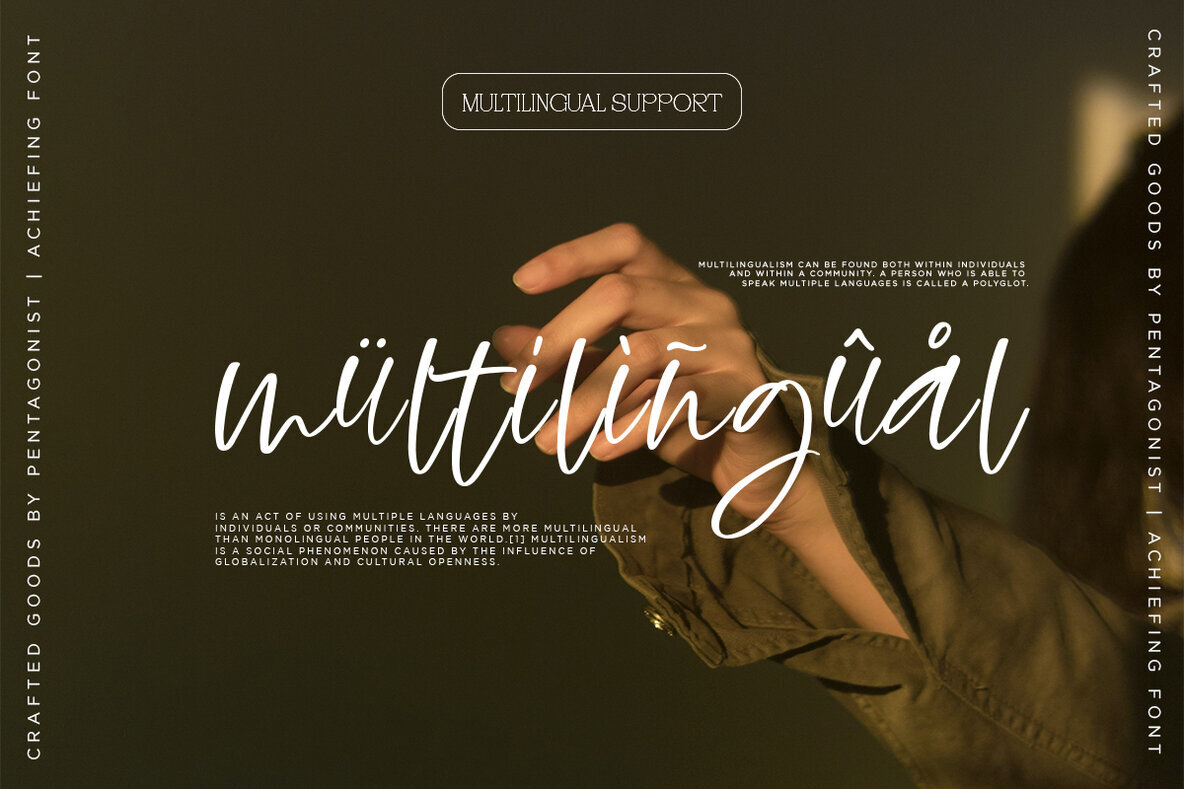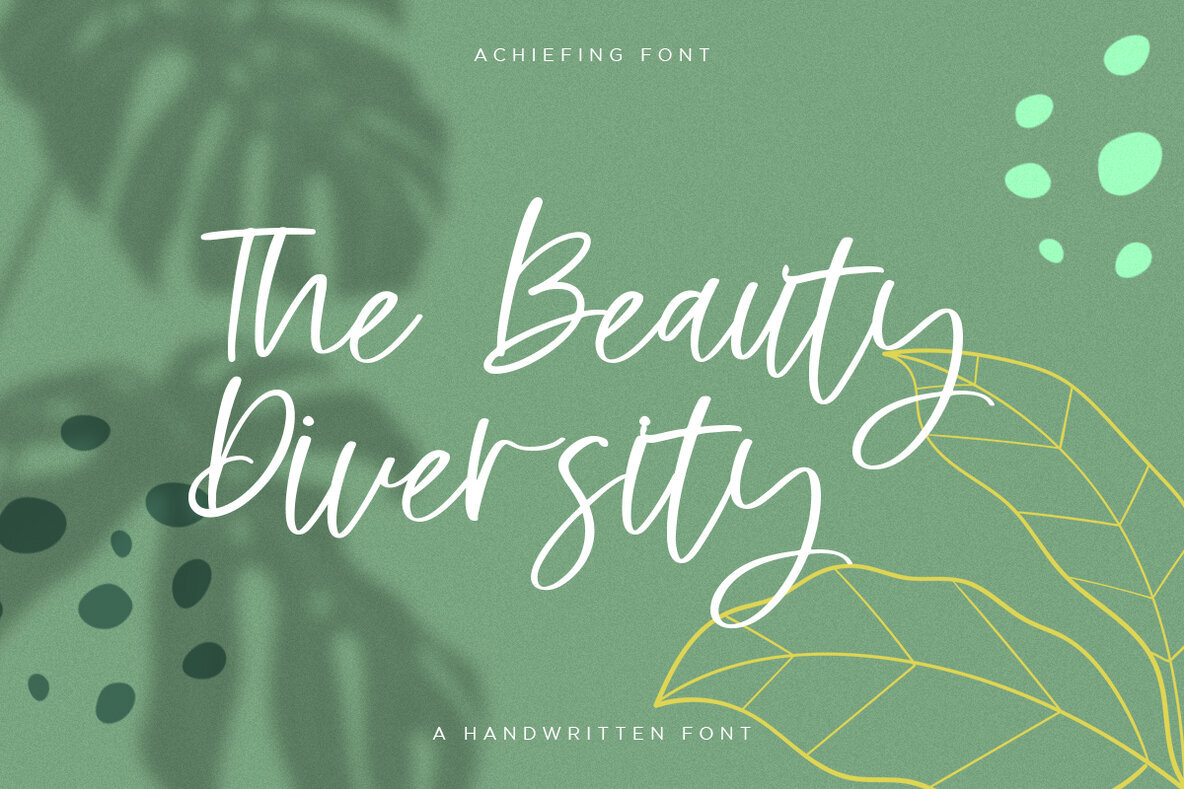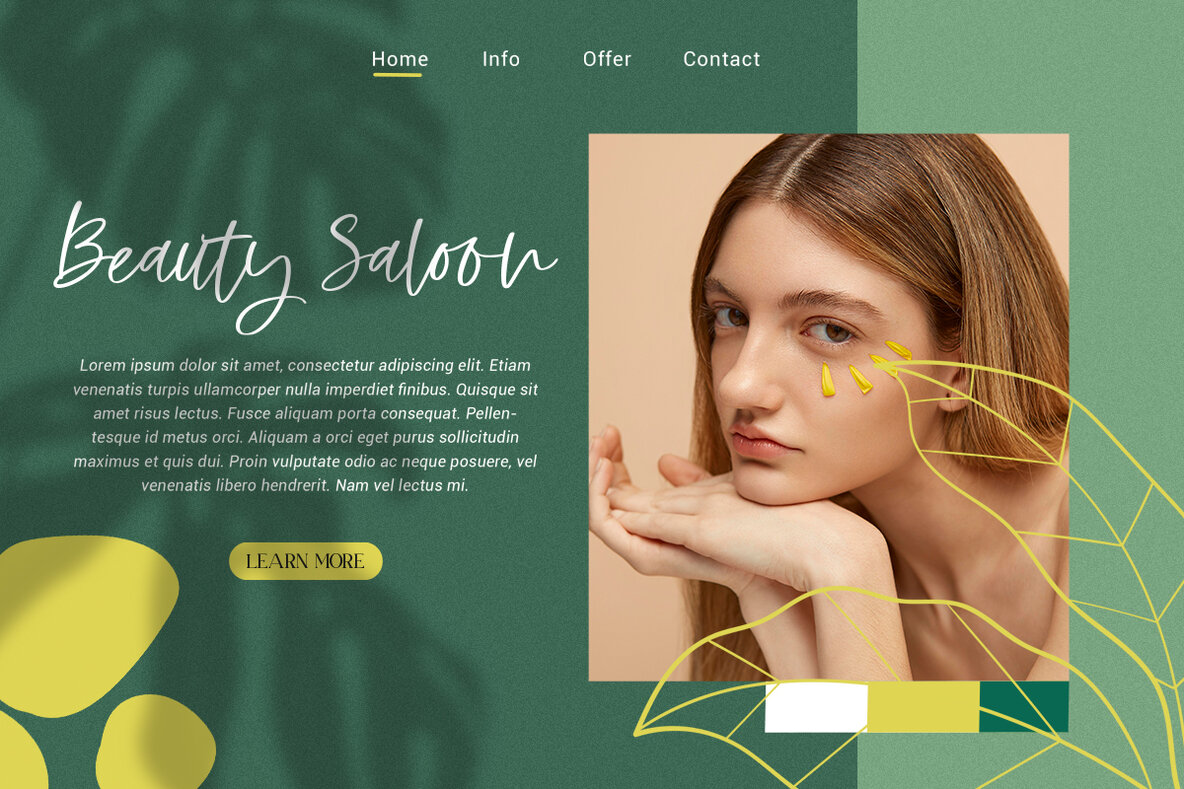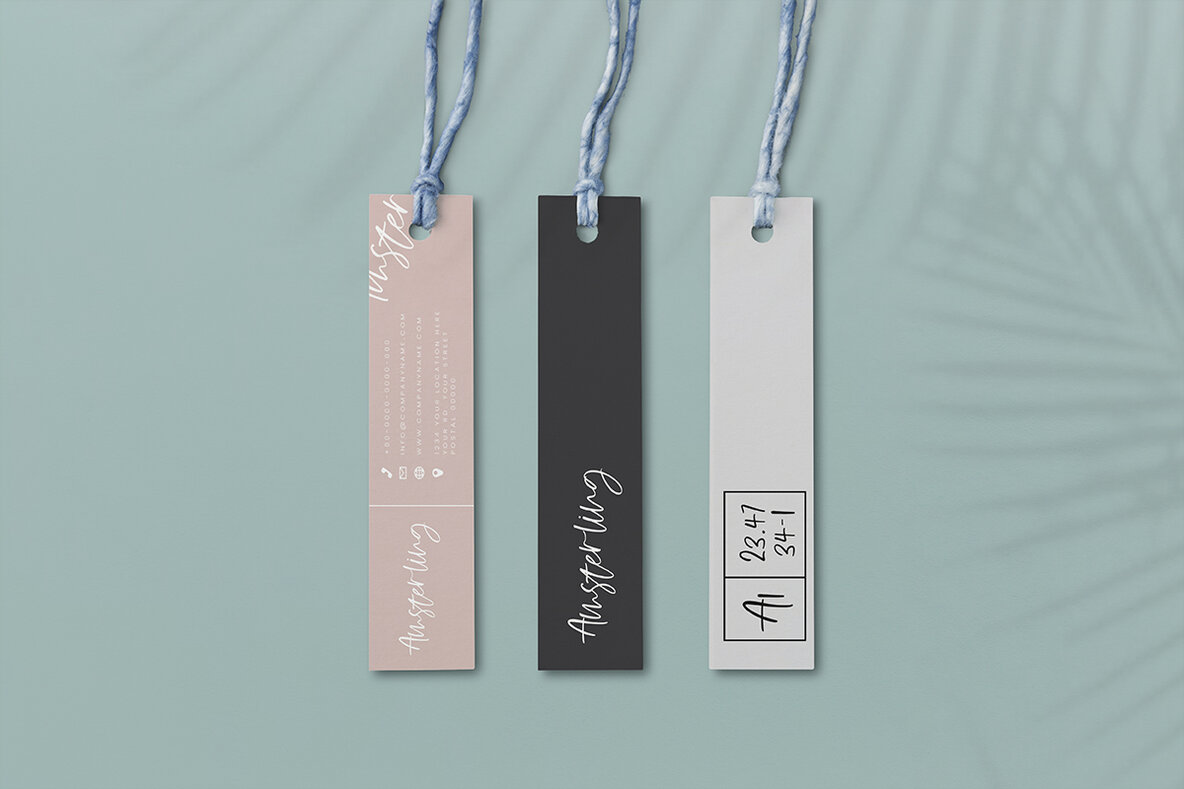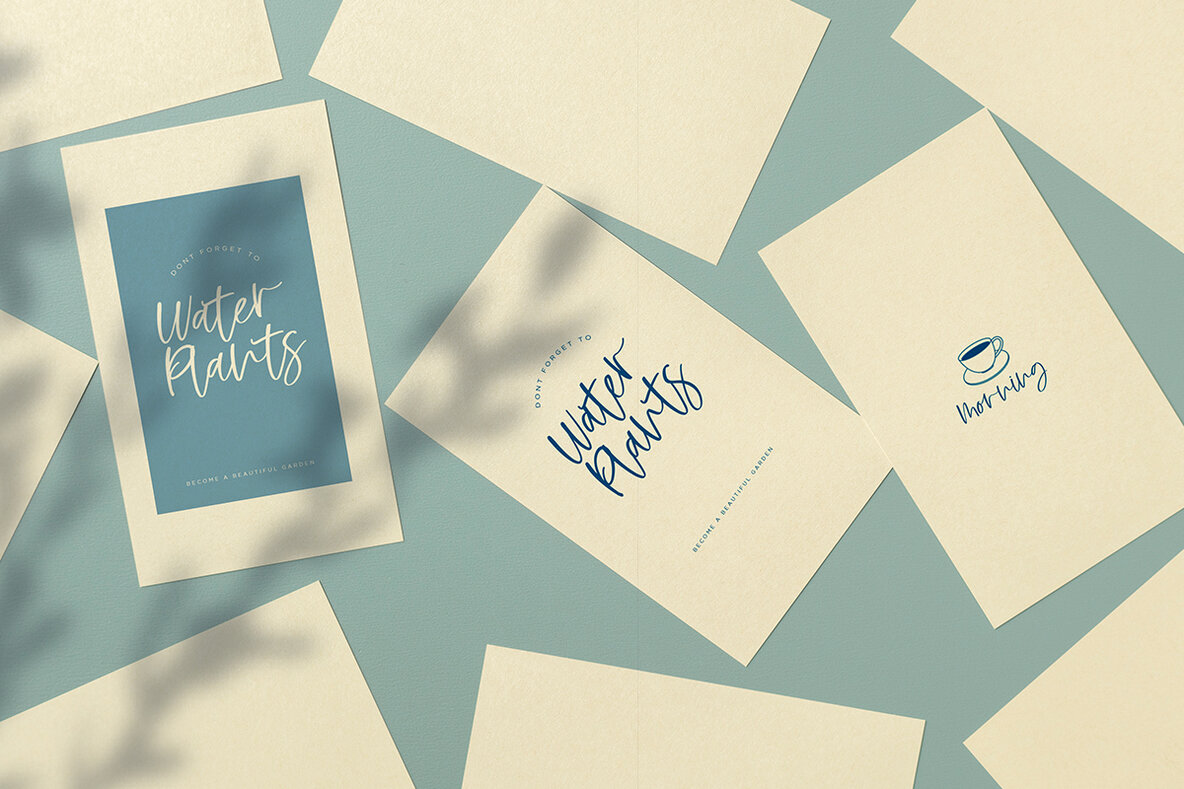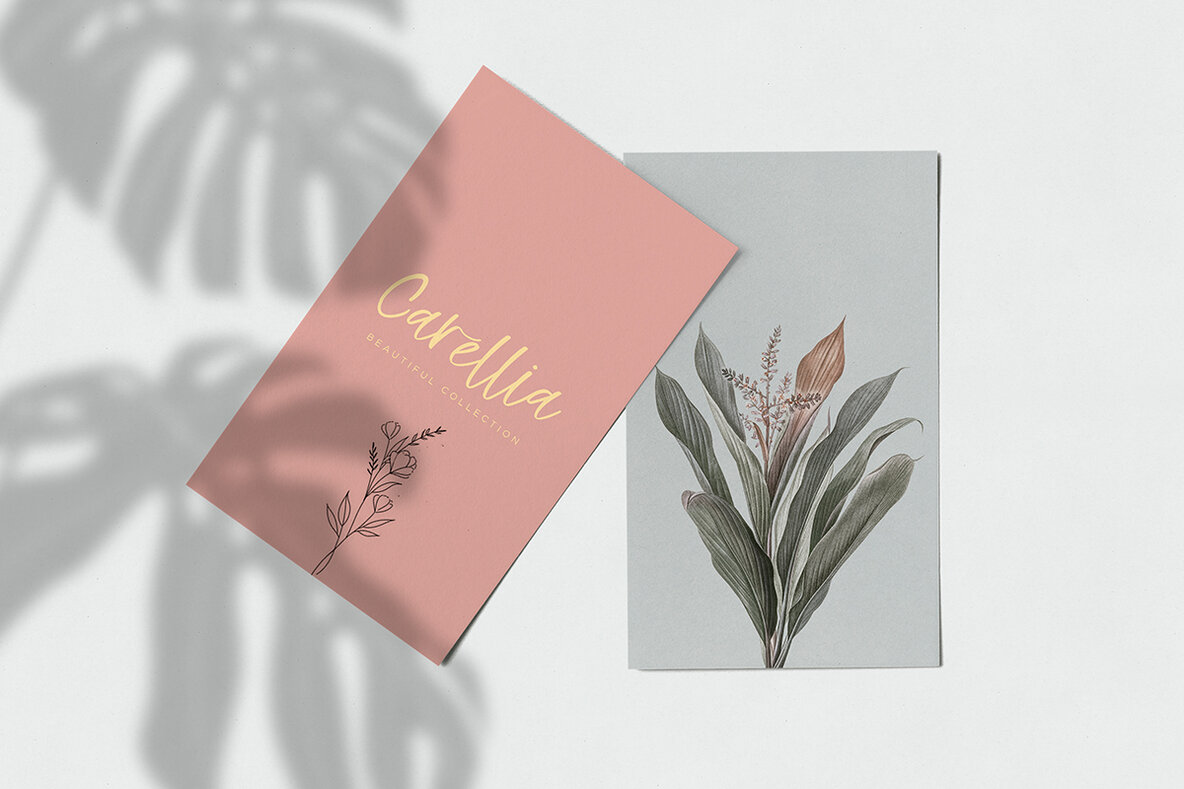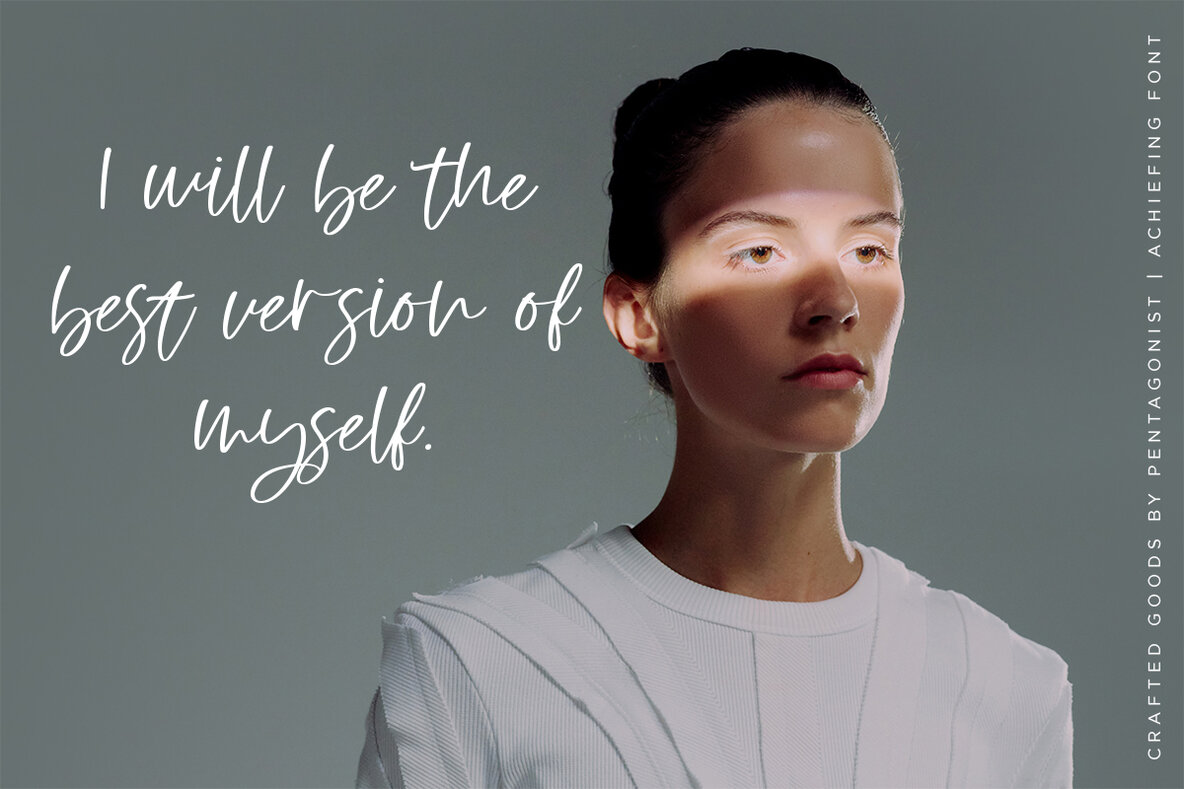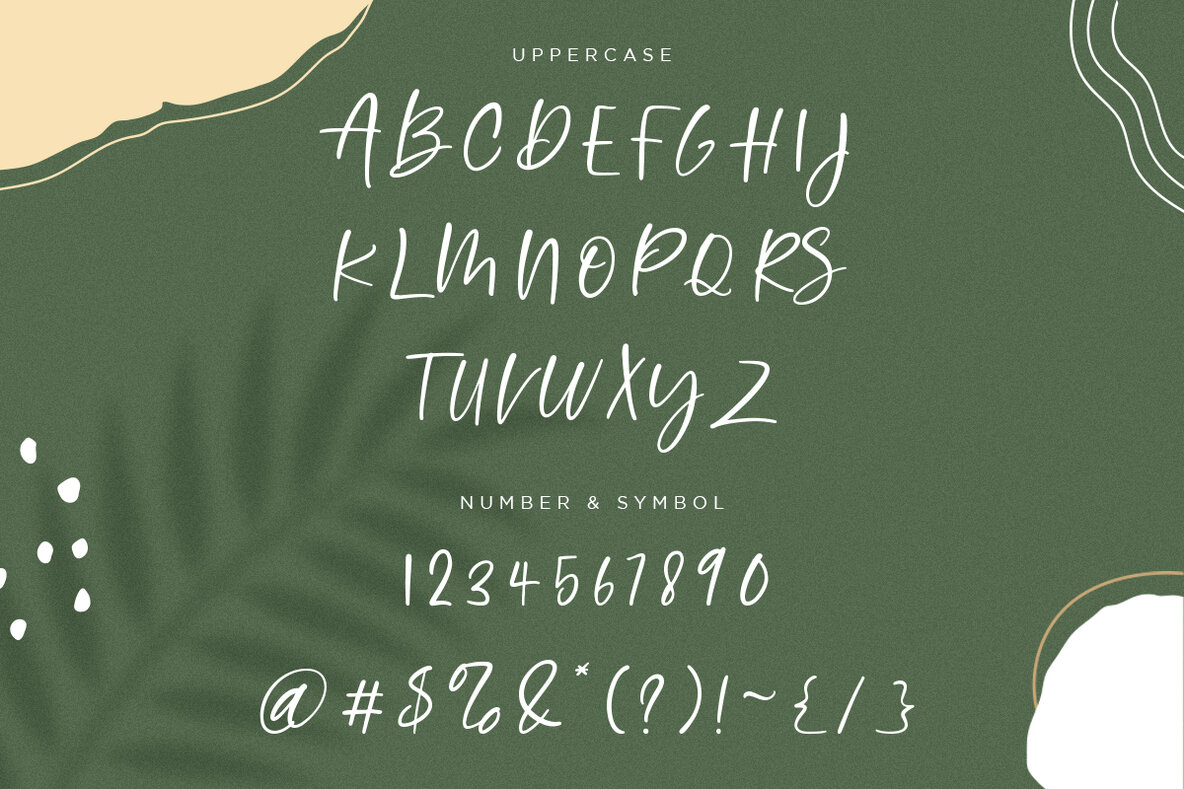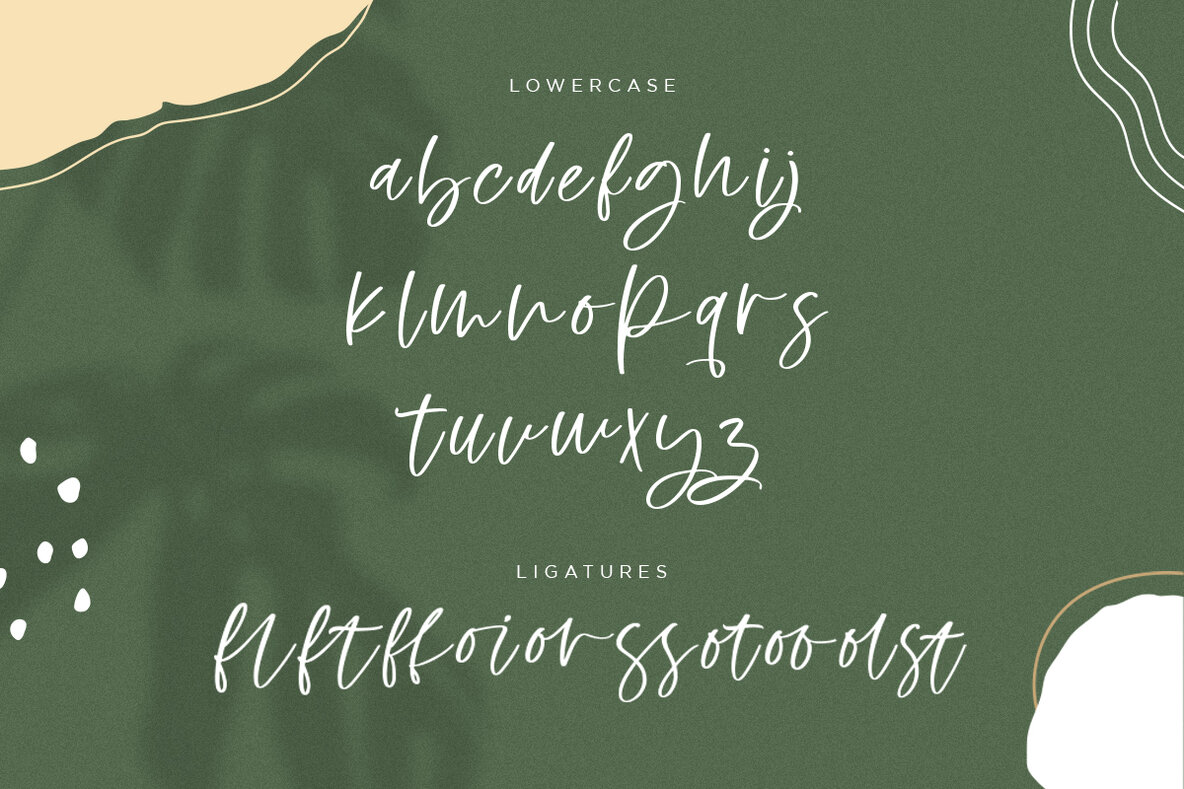
Achieving Font
Achieving Regular
Achieving offers a clean script font that draws inspiration from natural handwriting. This font is designed for those looking to incorporate a personal and approachable aesthetic in their projects. No special software is required to use Achieving. It is compatible with any basic program or website app that supports standard fonts. For updates on additional glyphs and language support, follow the shop. Please feel free to message for specific language inclusions or feature requests.Achieving by Pentagonistudio: A Clean Script Inspired by Handwriting